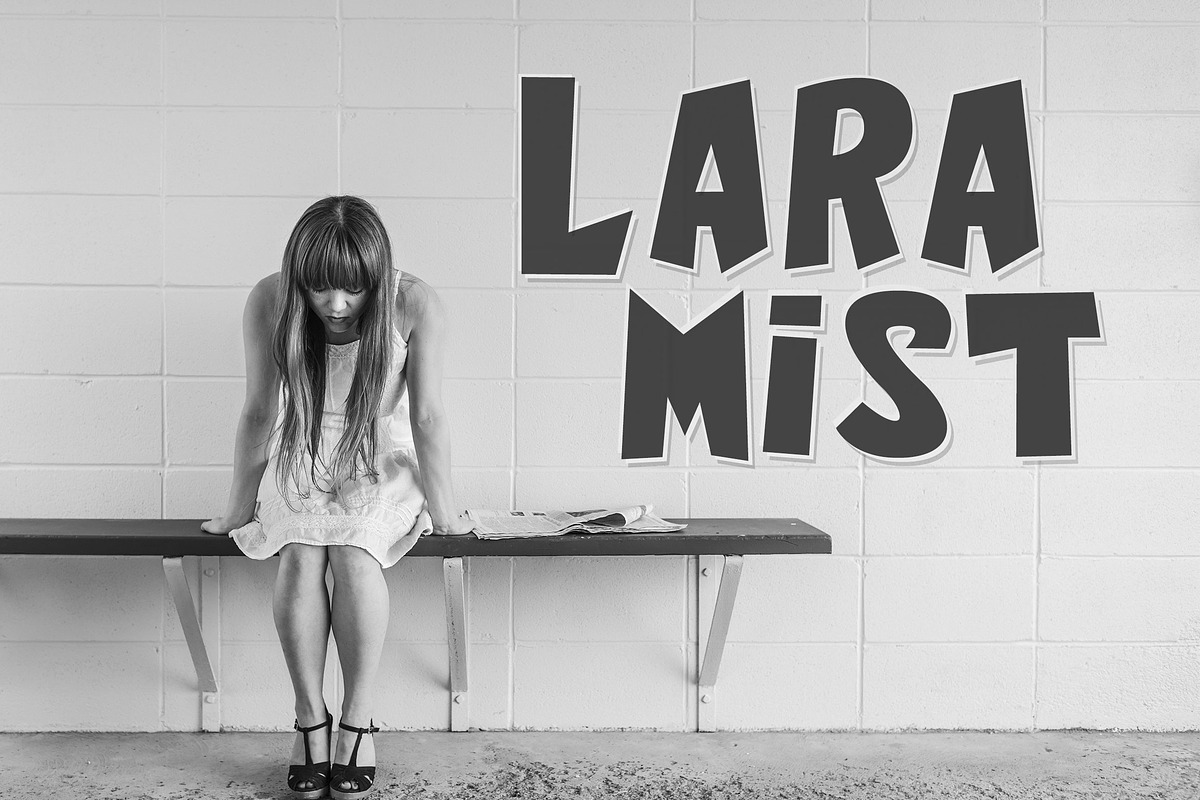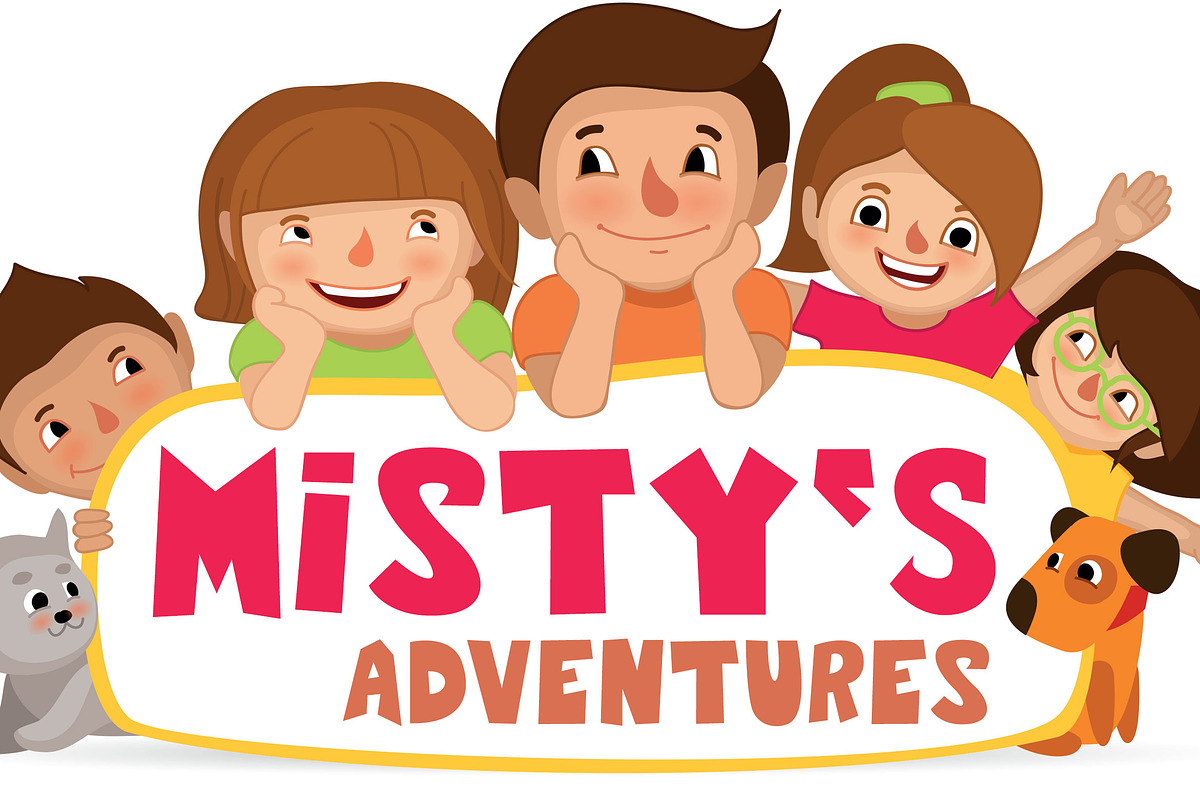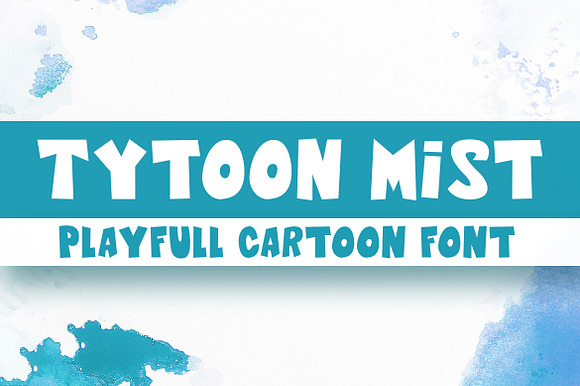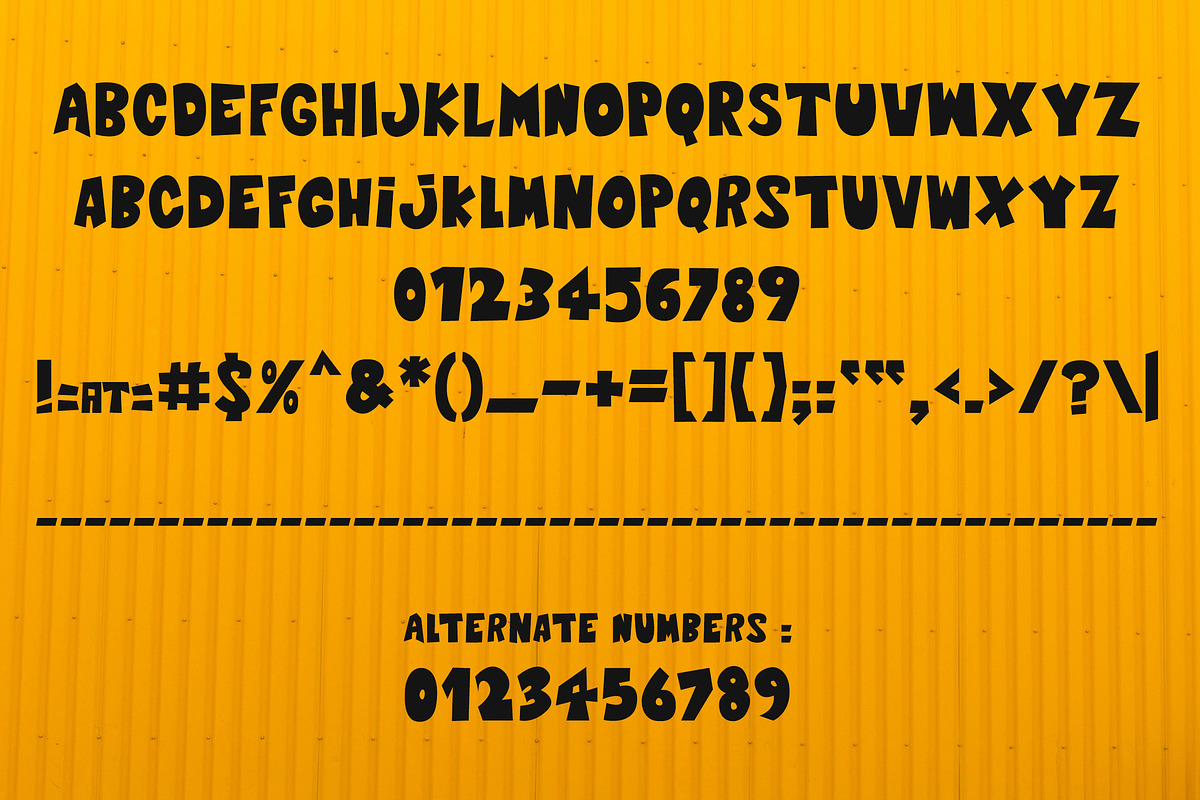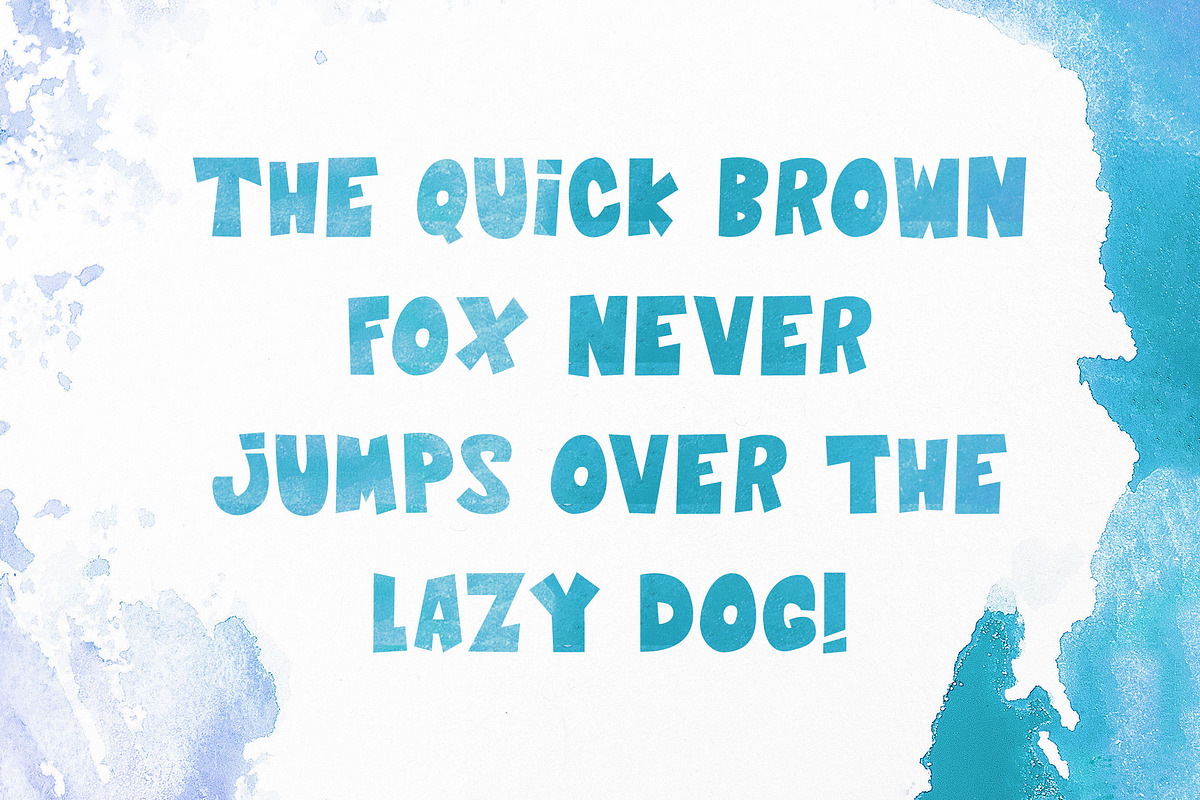
Tytoon Mist - Playful Cartoon Font
Tytoon Mist - A Playful kids friendly All Caps Cartoon Font.
This font will be perfect choice for the cartoons, video titles, kids products, banners, video games, Invitations and much more.